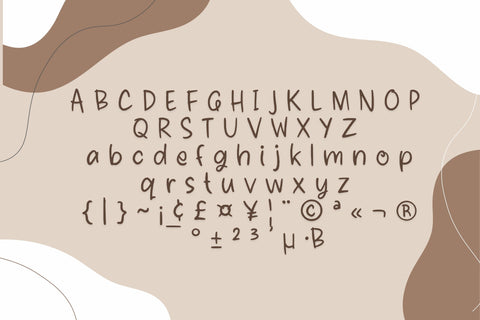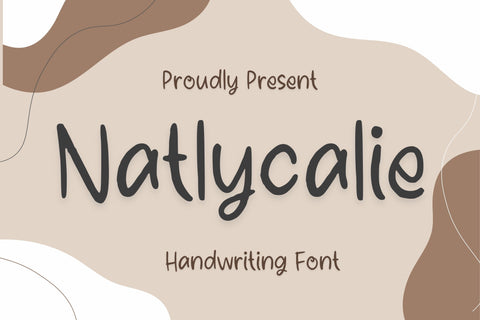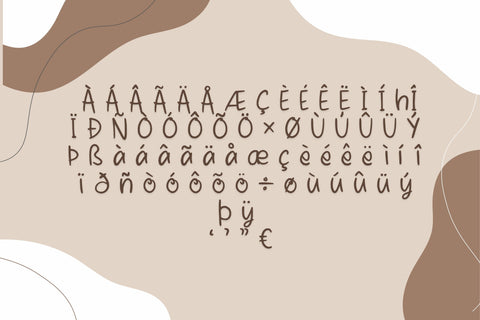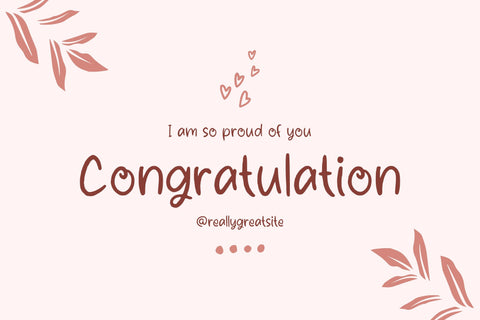
Natlycalie Handwriting Font
The Natlycalie Handwriting Font has a playful and whimsical look, with letters that are fluid and have a slightly irregular shape, giving the font a natural and organic feel. The font includes a full set of upper and lowercase letters, as well as numbers and punctuation, making it a versatile and practical choice for designers.
Additionally, the Natlycalie Handwriting Font is a versatile font that works well in both large and small sizes, making it suitable for use in both headlines and body copy. The font is also designed to be easy to read, making it a great choice for long-form text.
Overall, Natlycalie Handwriting Font is a charming and playful font that brings a touch of personality and character to any design project. Whether you're designing a wedding invitation, creating a social media post, or working on a logo, this font is sure to make your project stand out.